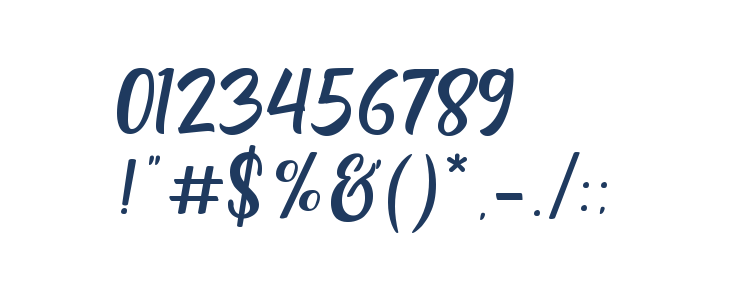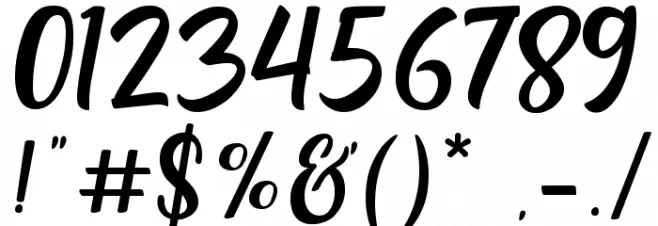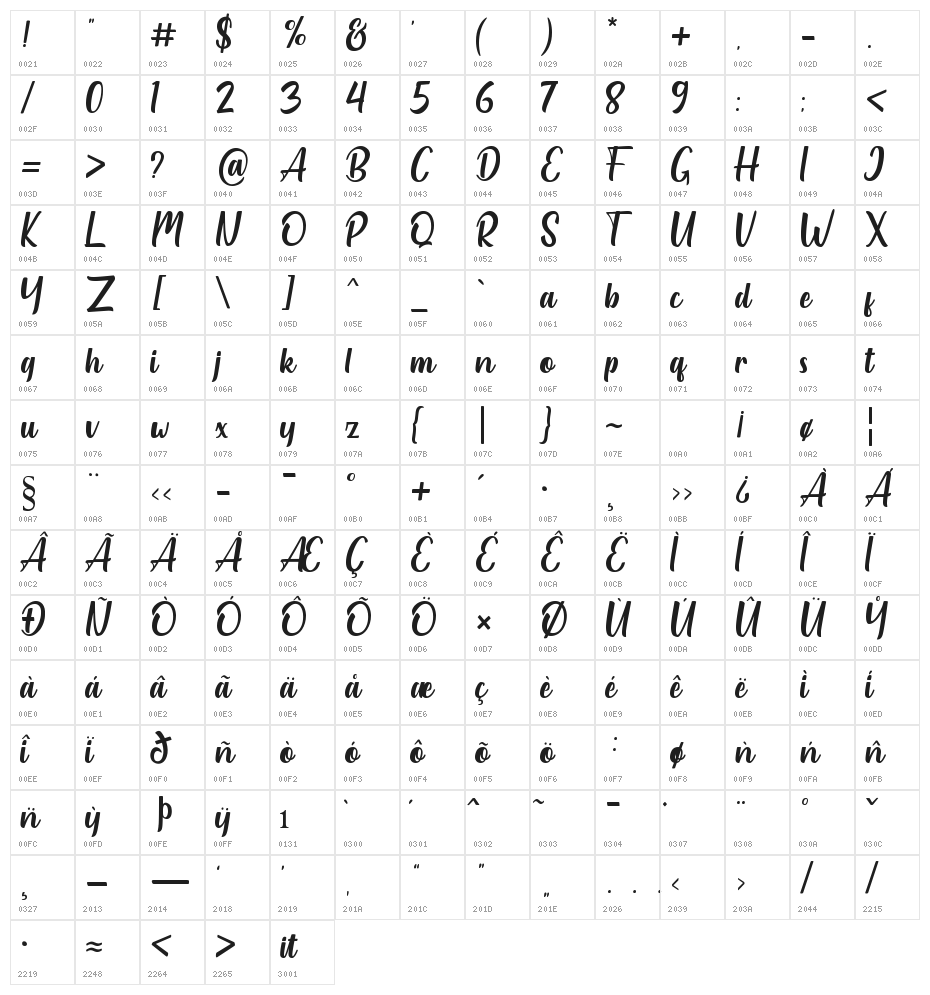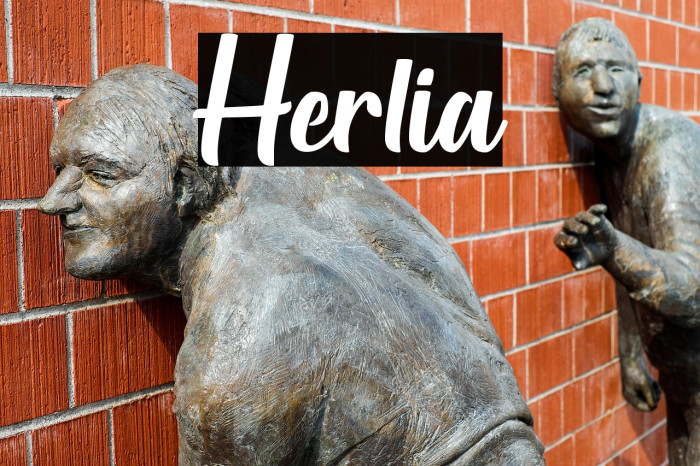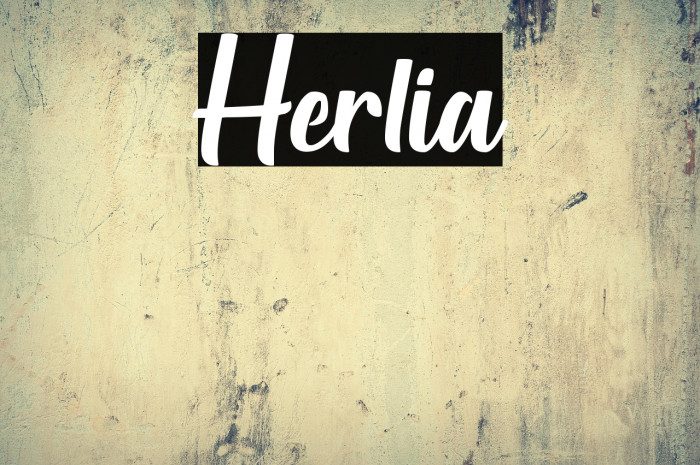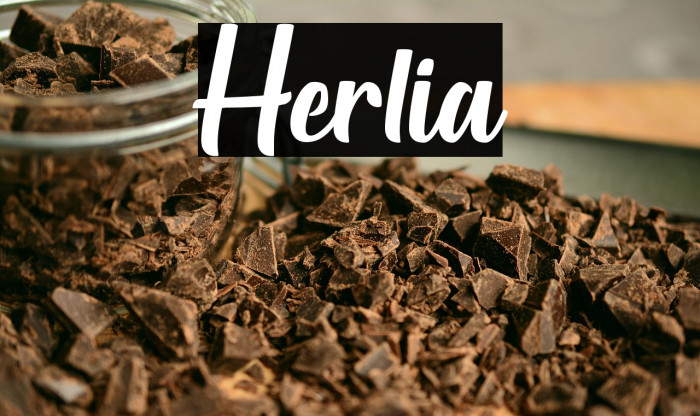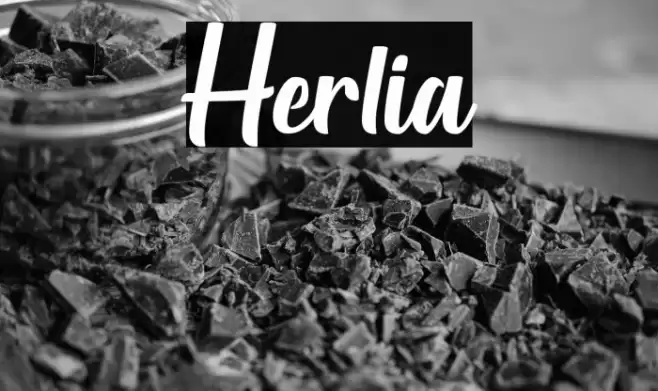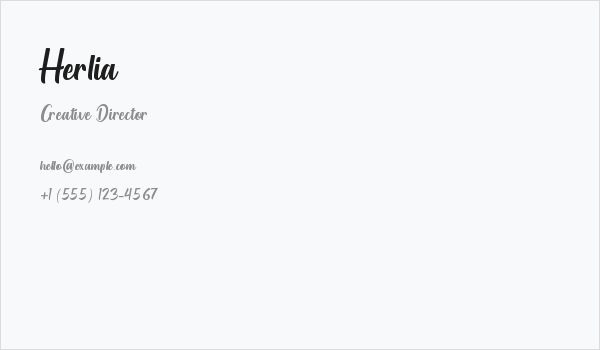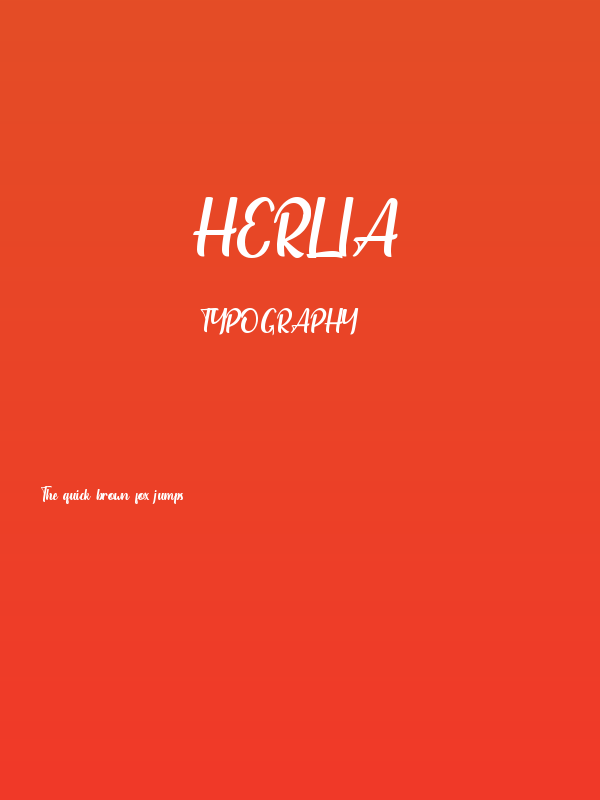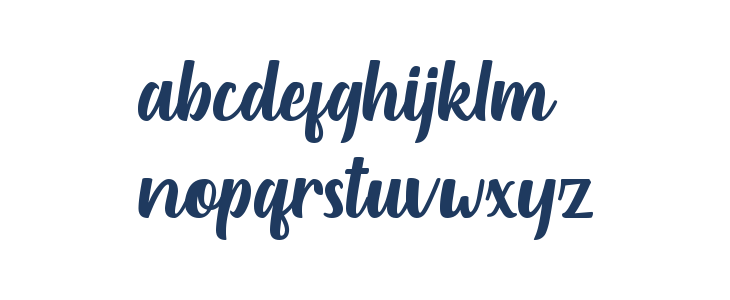
Herlia Font
Herlia Description
This font features a dynamic and flowing script style, characterized by its elegant and smooth curves. The letters are interconnected, giving it a handwritten appearance that exudes a sense of fluidity and grace. The uppercase letters are bold and slightly slanted, while the lowercase letters maintain a consistent flow with a touch of whimsy. The numerals are well-integrated into the overall style, maintaining the same fluidity and elegance. Special characters are thoughtfully designed to match the overall aesthetic, making this font versatile for various creative applications.
| Proposed Projects | Ideal for wedding invitations, greeting cards, branding projects, and elegant packaging designs. |